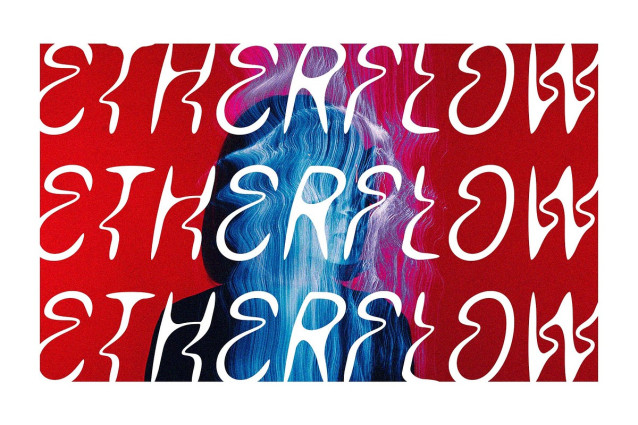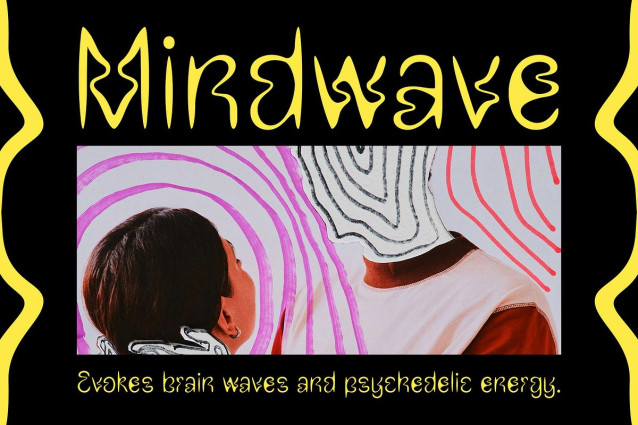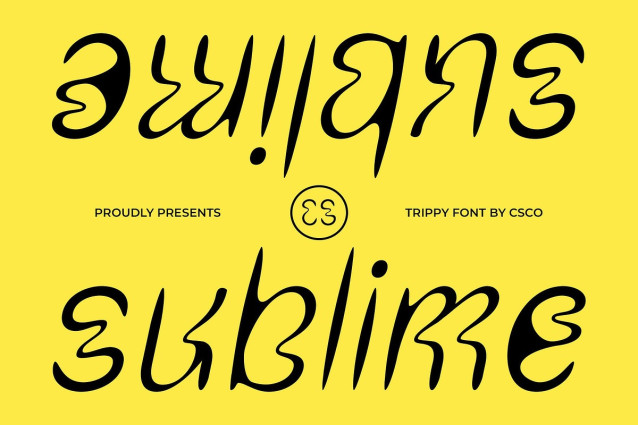
CS Sublime Drawn Font
CS Sublime Drawn Font: Psychedelic Curves with Playful Energy Trippy Display Font with Hand-Drawn Charm This is a psychedelic display font that thrives on experimental curves and freeform rhythm. Its unconventional letterforms radiate energy and imagination, while the hand-drawn texture enhances its organic, playful personality. Perfect for creatives who want to break away from rigid design, this font brings a sense of movement and spontaneity to every project. Psychedelic Curves that Capture Attention The flowing, swirling shapes of command attention with their bold and unconventional style. Designed to feel both hypnotic and dynamic, these curves make the font ideal for projects that want to channel the spirit of 60s psychedelia while still feeling fresh and modern. Hand-Drawn Detail for Artistic Flair Each character is enriched with a hand-drawn touch that gives its unique charm. This artisanal quality softens its bold shapes, adding texture and depth that transform words into expressive visuals. It’s a font that feels alive, constantly shifting and reshaping in the viewer’s eye. Perfect for Music, Posters, and Creative Branding Whether you’re creating music branding, funky editorial spreads, or bold poster art, delivers unforgettable impact. Its trippy aesthetic and handmade charm make it the perfect typeface for experimental design, ensuring that your work resonates with color, energy, and playful individuality. — What you get : – CS Sublime Drawn Regular – CS Sublime Drawn Italic Features : – Uppercase and lowercase characters – Numerals and Punctuation (OpenType Standard) – Accents (Supports Multilingual Characters) – PUA Encoding — You can use this typeface without needing any specialized software.